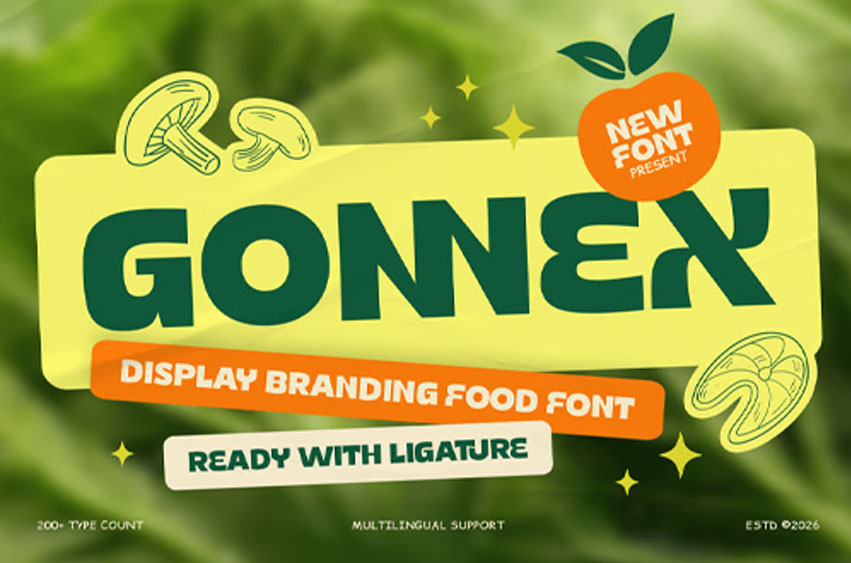
Gonnex Font Display Bold Food Font GONNEX is a bold display food font designed to create a strong, appetizing, and eye-catching visual presence. Featuring thick letterforms, solid structure, and a modern playful style, GONNEX is perfect for restaurant branding, food packaging, menus, street food visuals, and culinary design projects.
Combining bold typography with a fun and flavorful character, GONNEX delivers a powerful and friendly identity. Its heavy structure ensures excellent readability while maintaining a vibrant and engaging look, making it ideal for cafes, fast food brands, snack packaging, and promotional materials.
GONNEX – Display Bold Food Font Features:
• Bold display style with food-inspired character
• Thick letterforms with strong and playful appearance
• Ideal for restaurants, menus, packaging, and branding
• High readability with impactful visual weight
• Perfect for culinary branding, street food, and promotions
Make your designs more delicious with GONNEX – the bold food font built for strong and tasty visual impact.